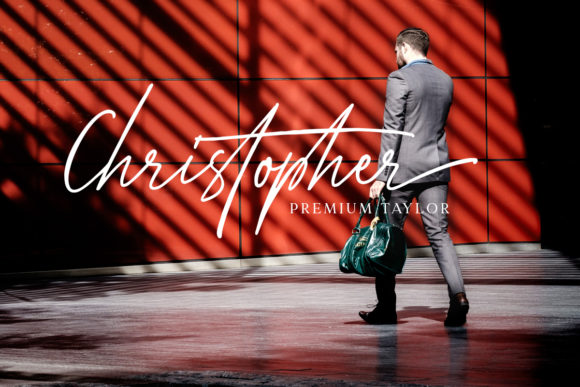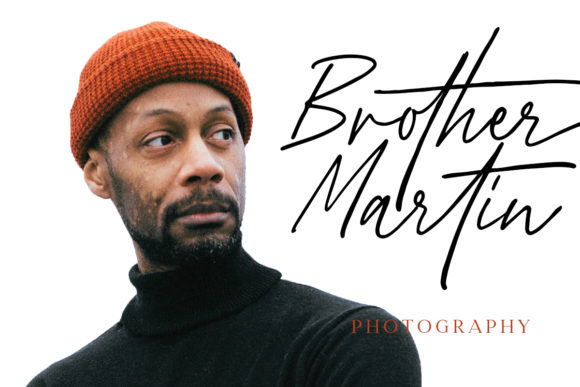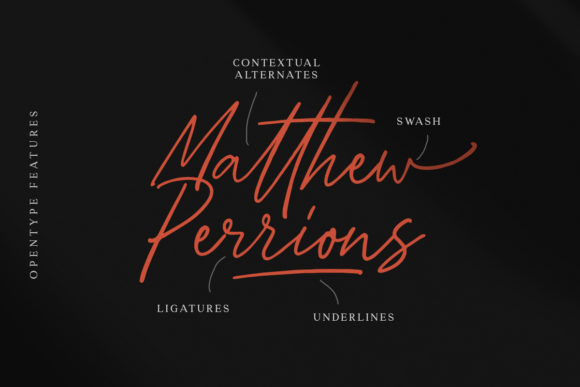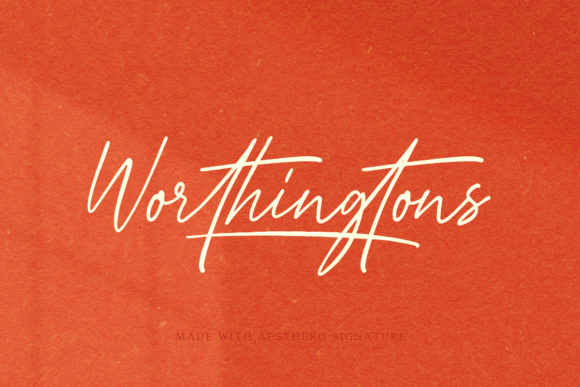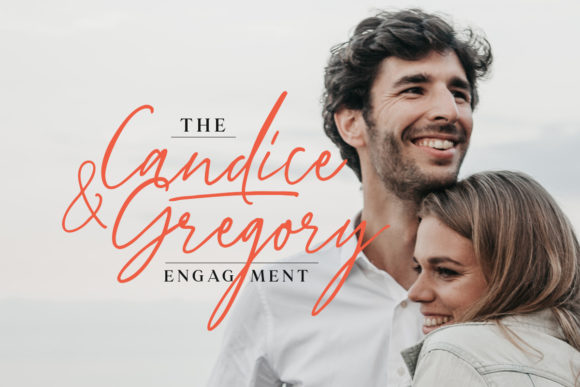
Aesthero Font
Aesthero is an authentic signature script font. It comes with cute ligature, contextual alternates, stylistic alternates and swashes. It is perfect for logos, branding, fashion design, and more!